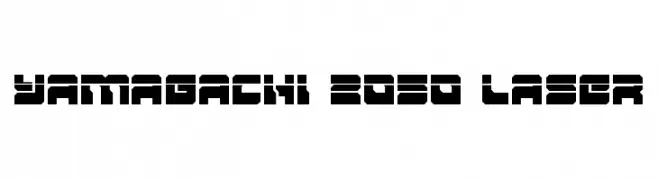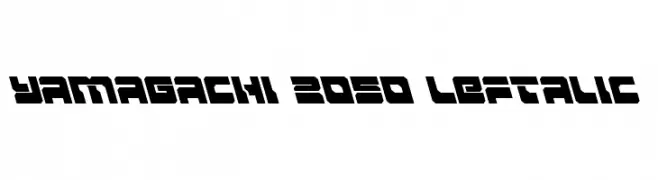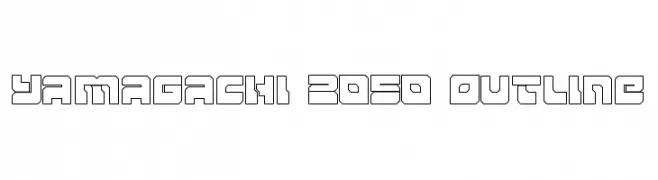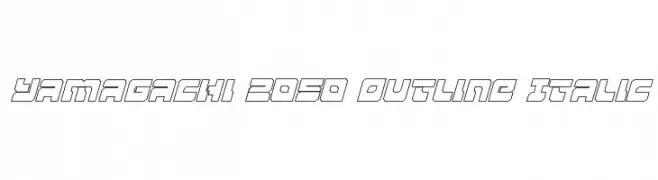
A futuristic, geometric font with bold, angular characters.
A futuristic, bold, and italic typeface with angular, geometric shapes.
A bold, futuristic font with sharp angles and geometric shapes.
A futuristic, geometric outline font with bold, angular shapes.
Futuristic, geometric outline font with italicized characters.
A bold, futuristic font with angular, semi-italic characters.
A bold, italicized font with a futuristic and angular design.